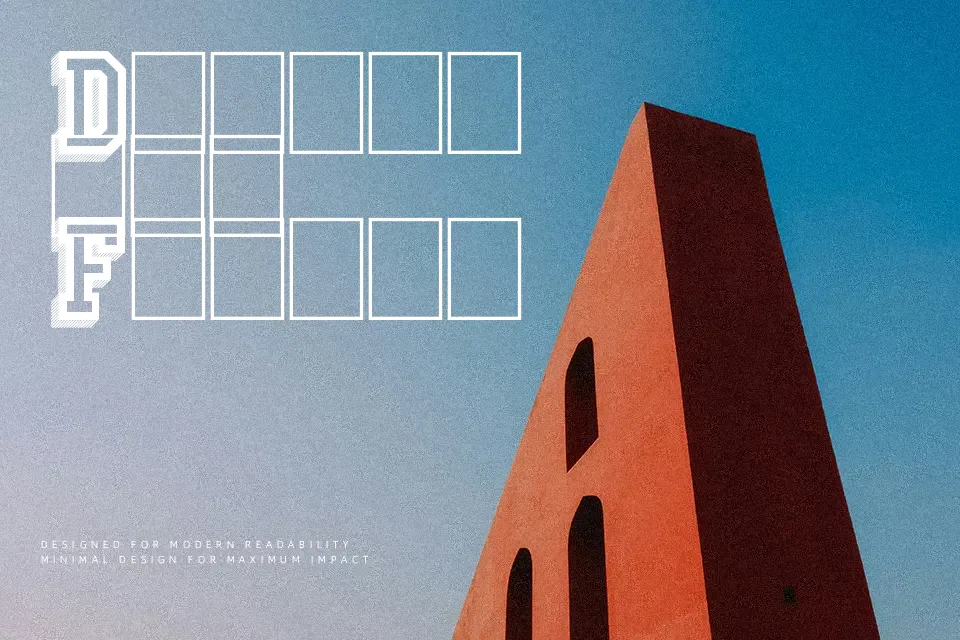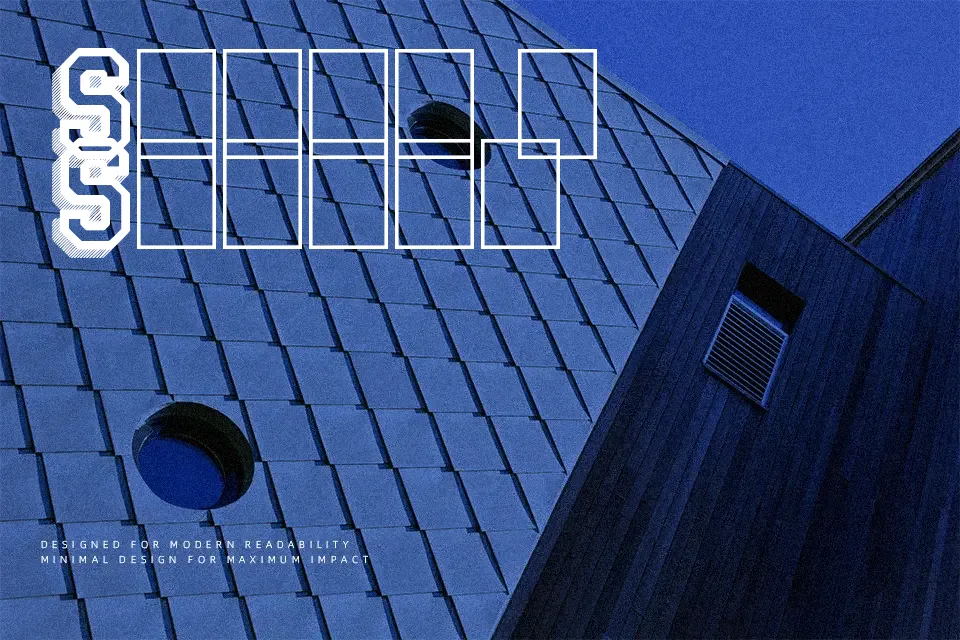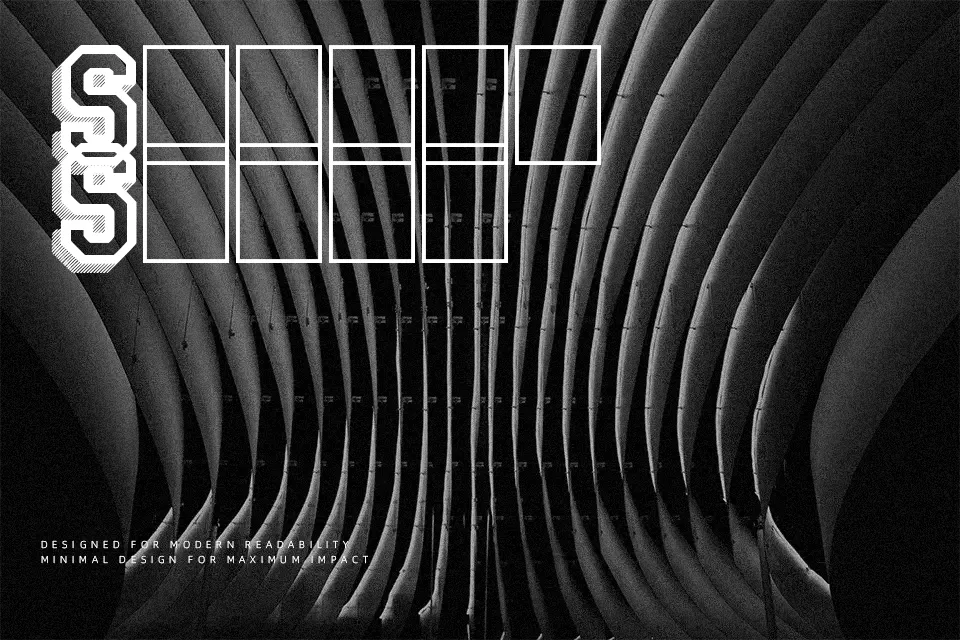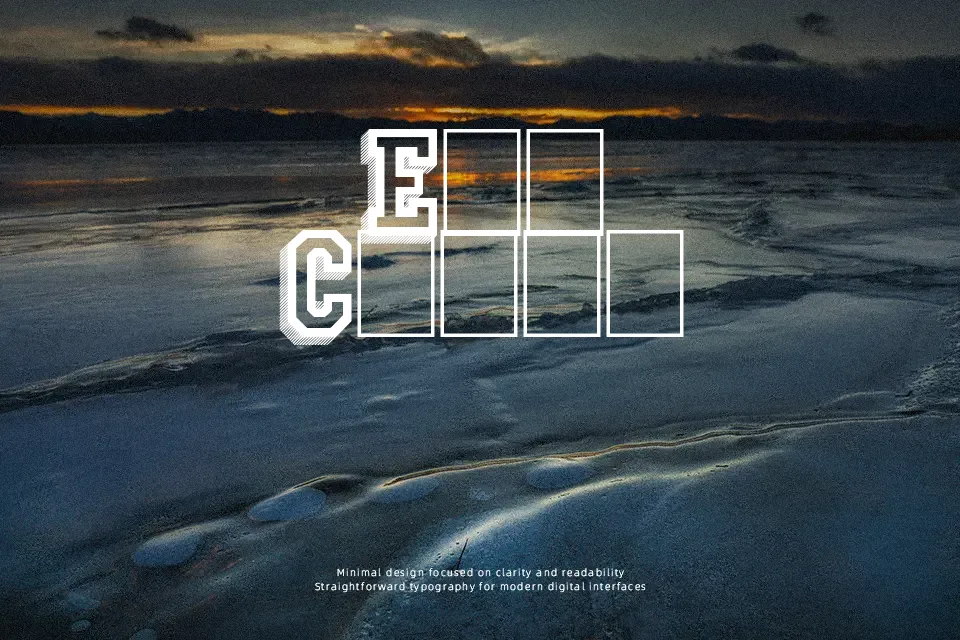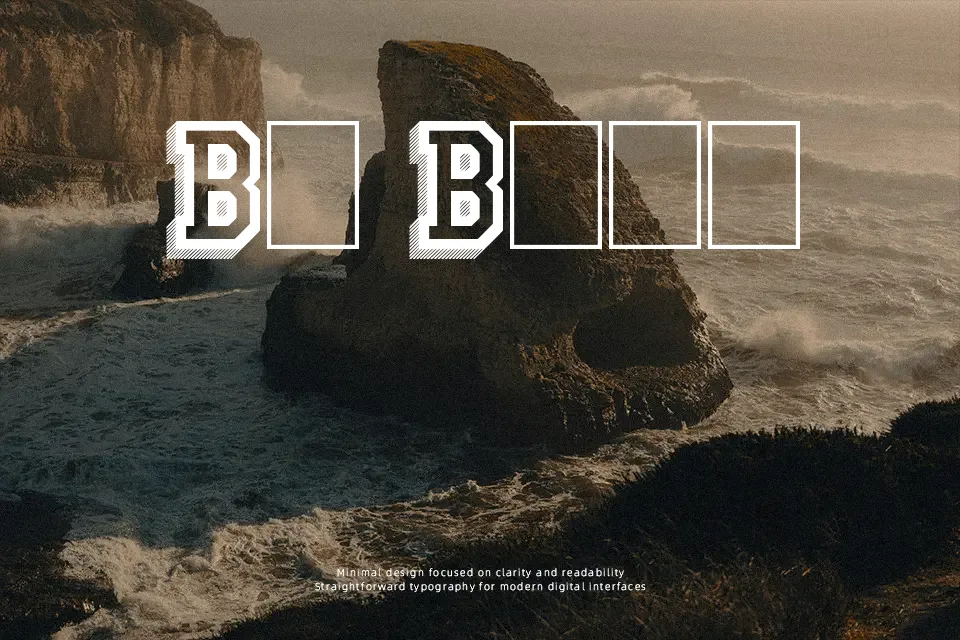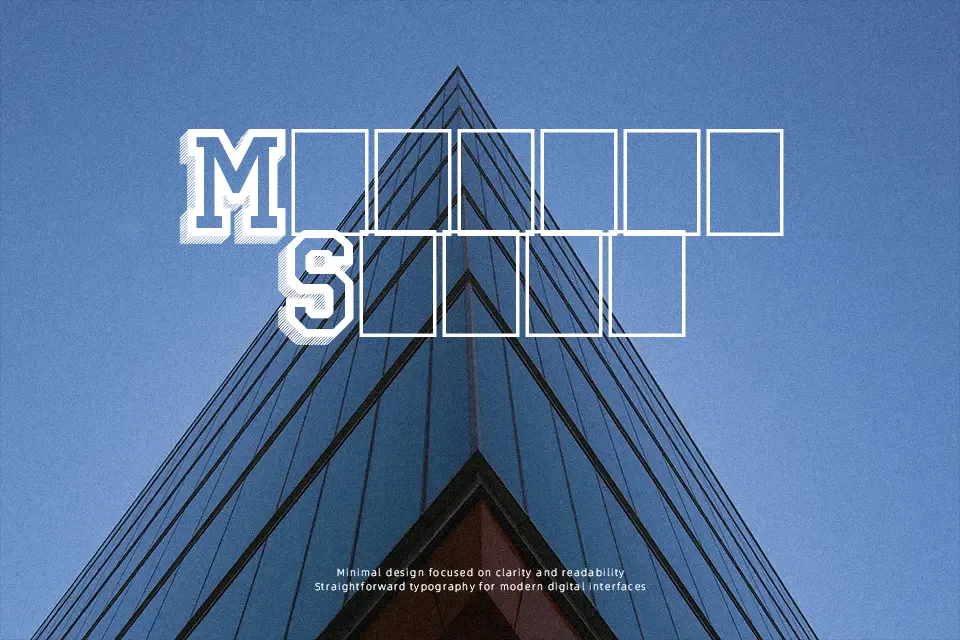
Campus Relief Font
Designed by imagex
Campus Relief is an all-caps display typeface built around classic varsity lettering, with blocky proportions, tight spacing, and an inset relief that creates a layered, three-dimensional feel. The strokes are heavy and squared off, so letters look sturdy and uniform rather than delicate or refined. It shines in large sizes on sports banners, university hoodies, booster-club graphics, and any layout that needs a bold, campus-athletics voice. Because of its weight, decorative inline, and limited character set, it quickly feels clumsy in long paragraphs, UI, or small captions, so it works best as a focused headline accent instead of a general-purpose text font.
college sports posters and event banners
team jerseys, hoodies, and school spirit merch
headline graphics for campus clubs and tournaments
body text or long editorial layouts
small UI labels, captions, or mobile interfaces
projects needing subtle, minimalist typography
Perfect for branding, logo, and poster, with a bold and display style.